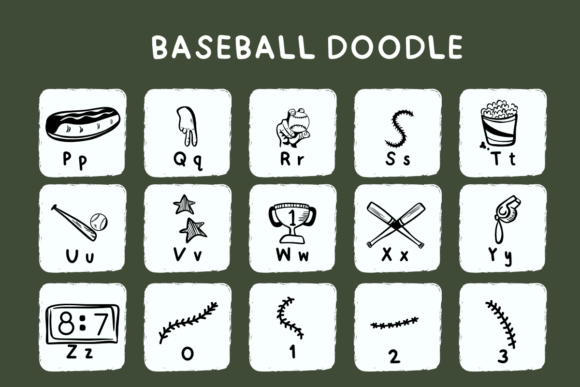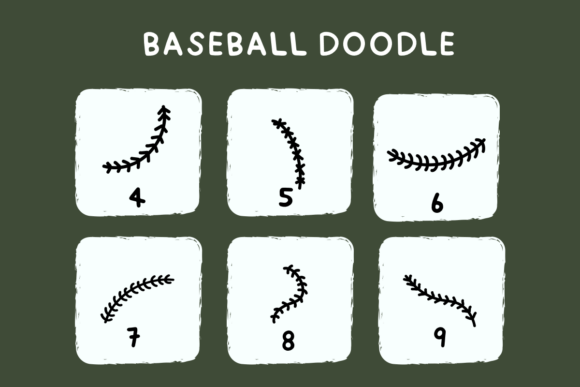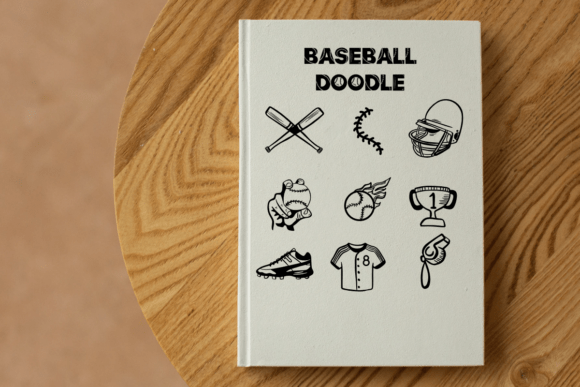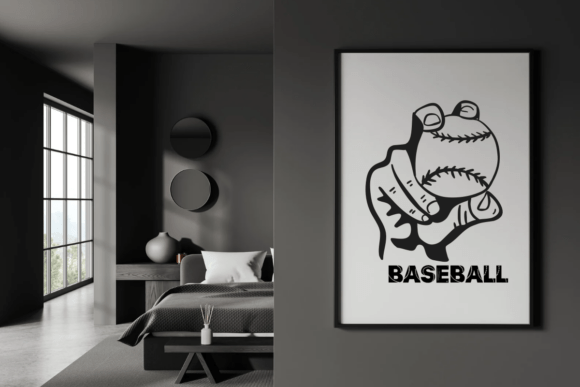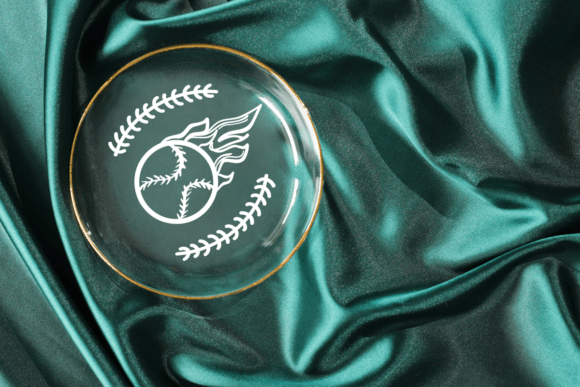
Get Ready to Swing into Creativity with Baseball Doodle Font
You’ve got your cup of coffee, your favorite notebook, and a spark of inspiration – the perfect combination for a creative session. But, what sets your imagination free and brings your ideas to life? The answer lies in the little things, like a quirky font that can elevate your doodles and turn them into masterpieces. Baseball Doodle Font is here to help you unleash your artistic side and add a playful touch to your designs.
This artistic dingbats font is not just a pretty face; it’s a versatile tool that can breathe life into a wide range of projects, from greeting cards and banners to social media posts and stationery. With Baseball Doodle Font, you can add a unique charm to your designs and stand out from the crowd. Whether you’re a seasoned designer or a creative enthusiast, this font is sure to inspire you and take your design game to the next level.
Key Features of Baseball Doodle Font
- Font Family: Baseball Doodle Font is a unique, hand-drawn font designed to resemble a baseball doodle.
- Unique Characteristics: Features a playful, hand-drawn design with a mix of bold and thin lines, giving it a distinctive and eye-catching appearance.
Baseball Doodle Font Review
I recently had the chance to work with the “Baseball Doodle Font”, and I must say it’s a unique addition to any design project. Here’s my honest take on it.
- The font’s playful, hand-drawn feel is perfect for capturing a carefree, summery vibe.
- The set includes a wide range of characters, from letters and numbers to symbols and punctuation marks.
- The font is highly customizable, allowing you to adjust the size, color, and style to suit your design needs.
- The font may not be suitable for formal or professional projects, as it has a somewhat informal feel.
- The characters can appear slightly irregular or uneven, which may be a concern for designers who value precision.
Overall, I think the “Baseball Doodle Font” is a fun and creative option for designers who want to add some whimsy to their projects. While it may not be suitable for every design scenario, it’s definitely worth considering for projects that call for a playful, summery feel.
The Baseball Doodle Font is ideal for creating fun and playful designs for:
– Sports-themed events and merchandise
– Kids’ parties and birthday invitations
– Social media graphics and promotions
– Educational materials and worksheets